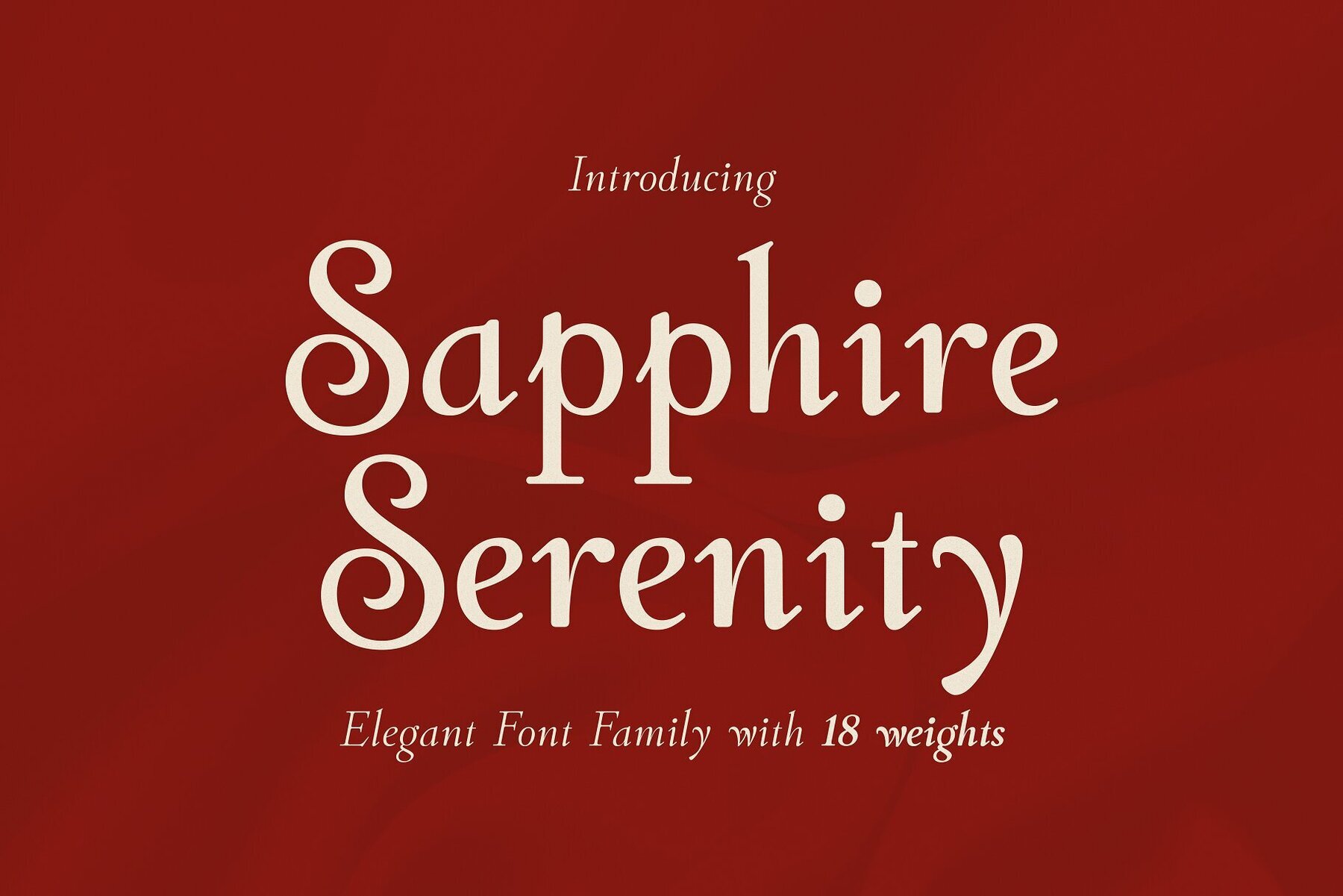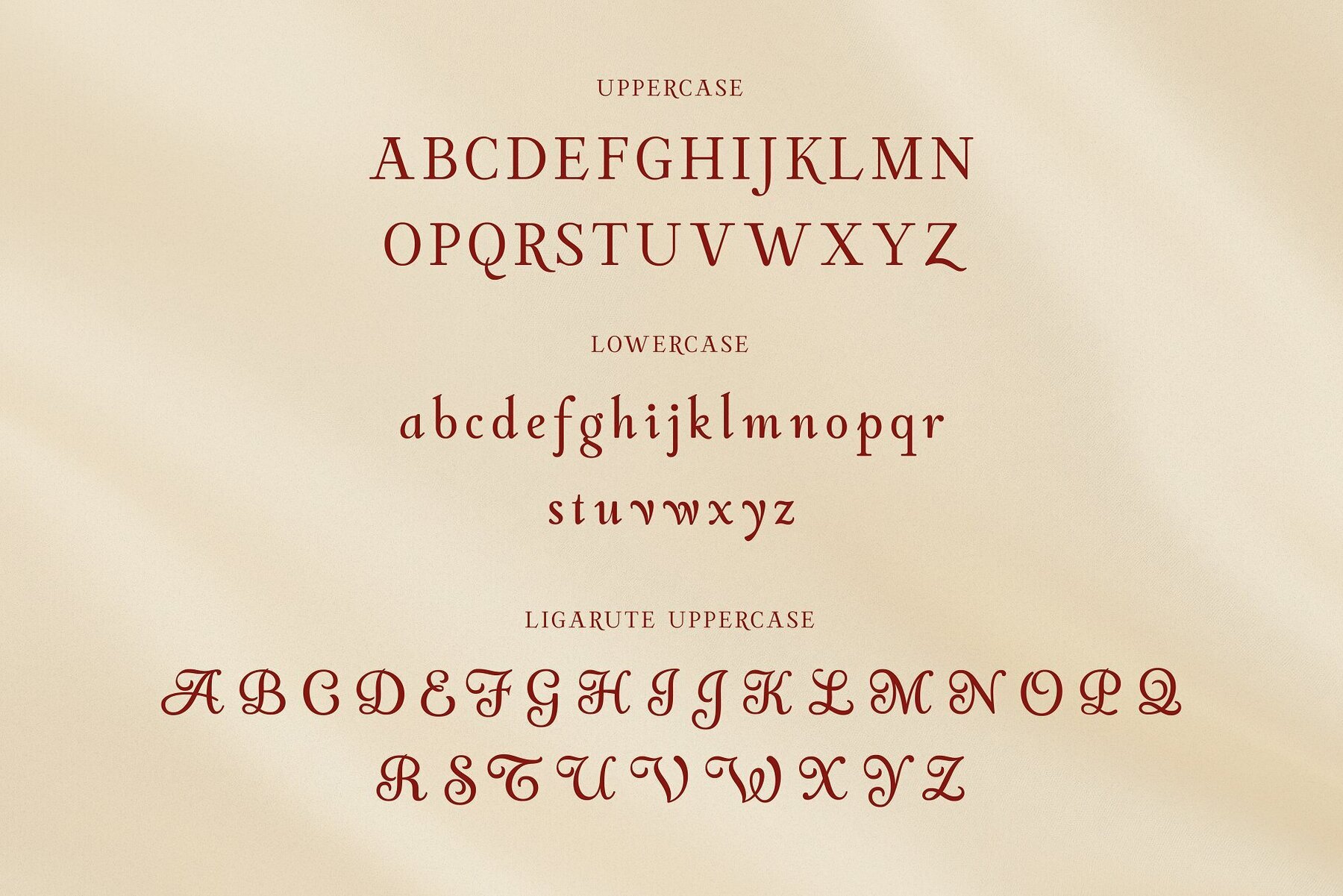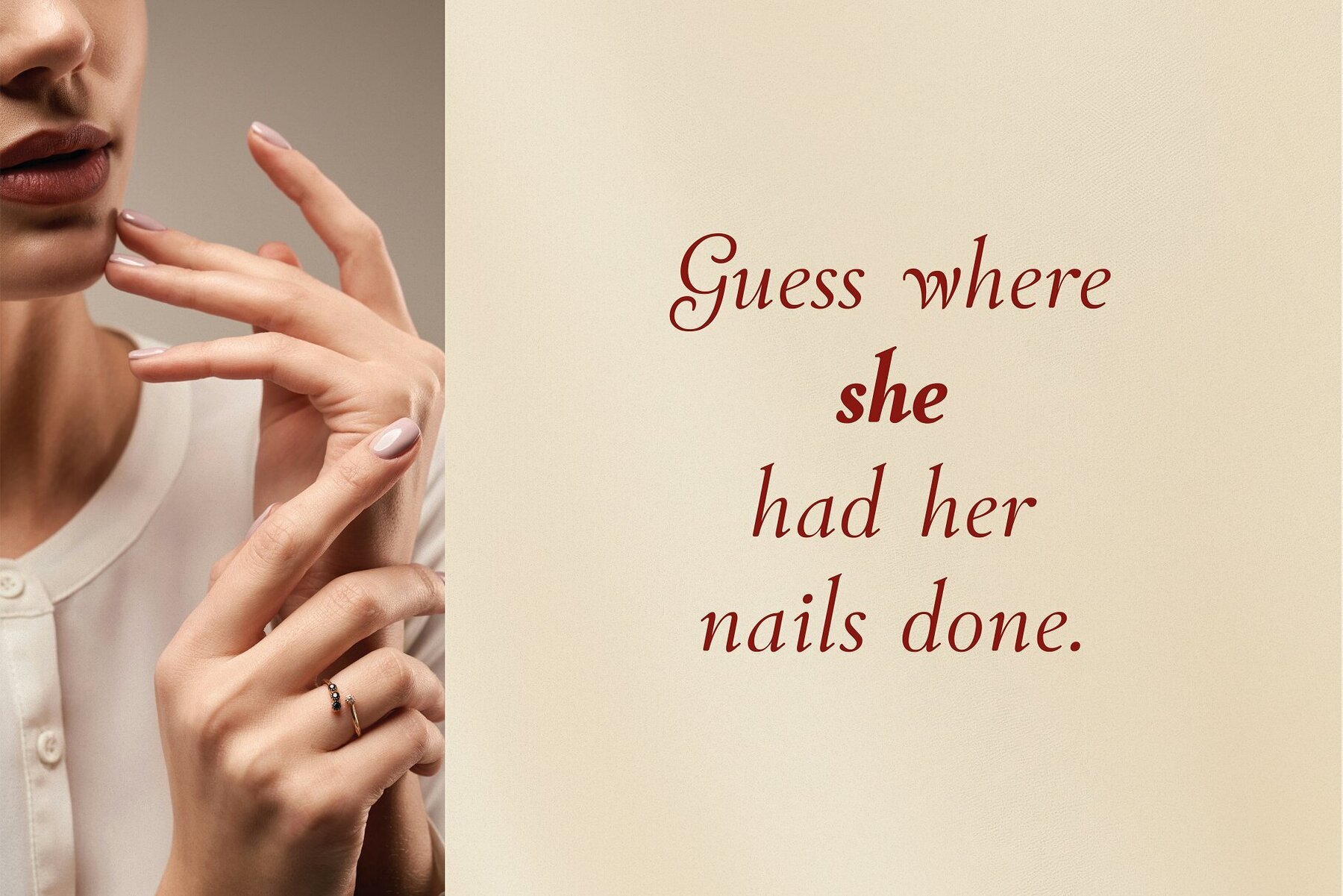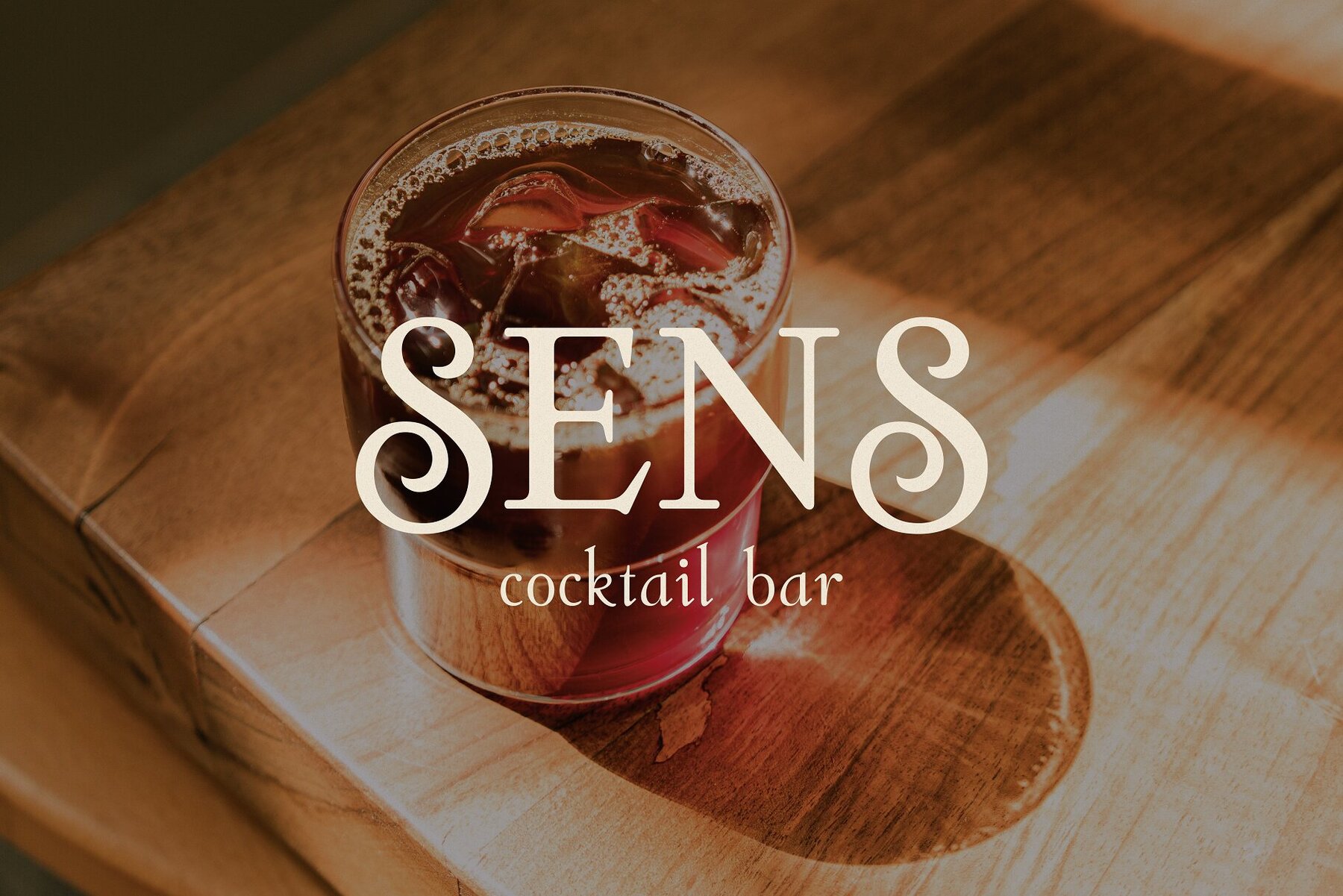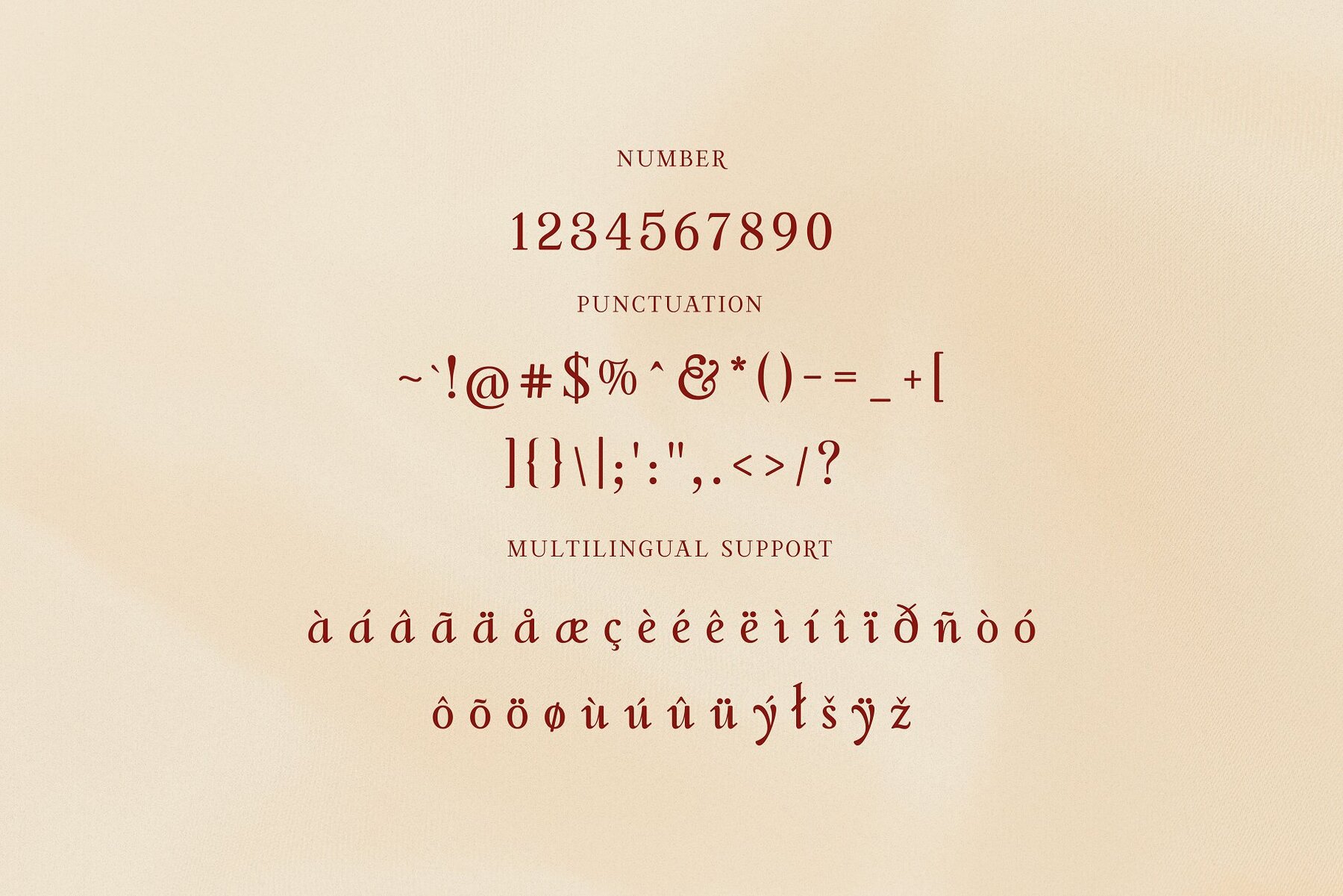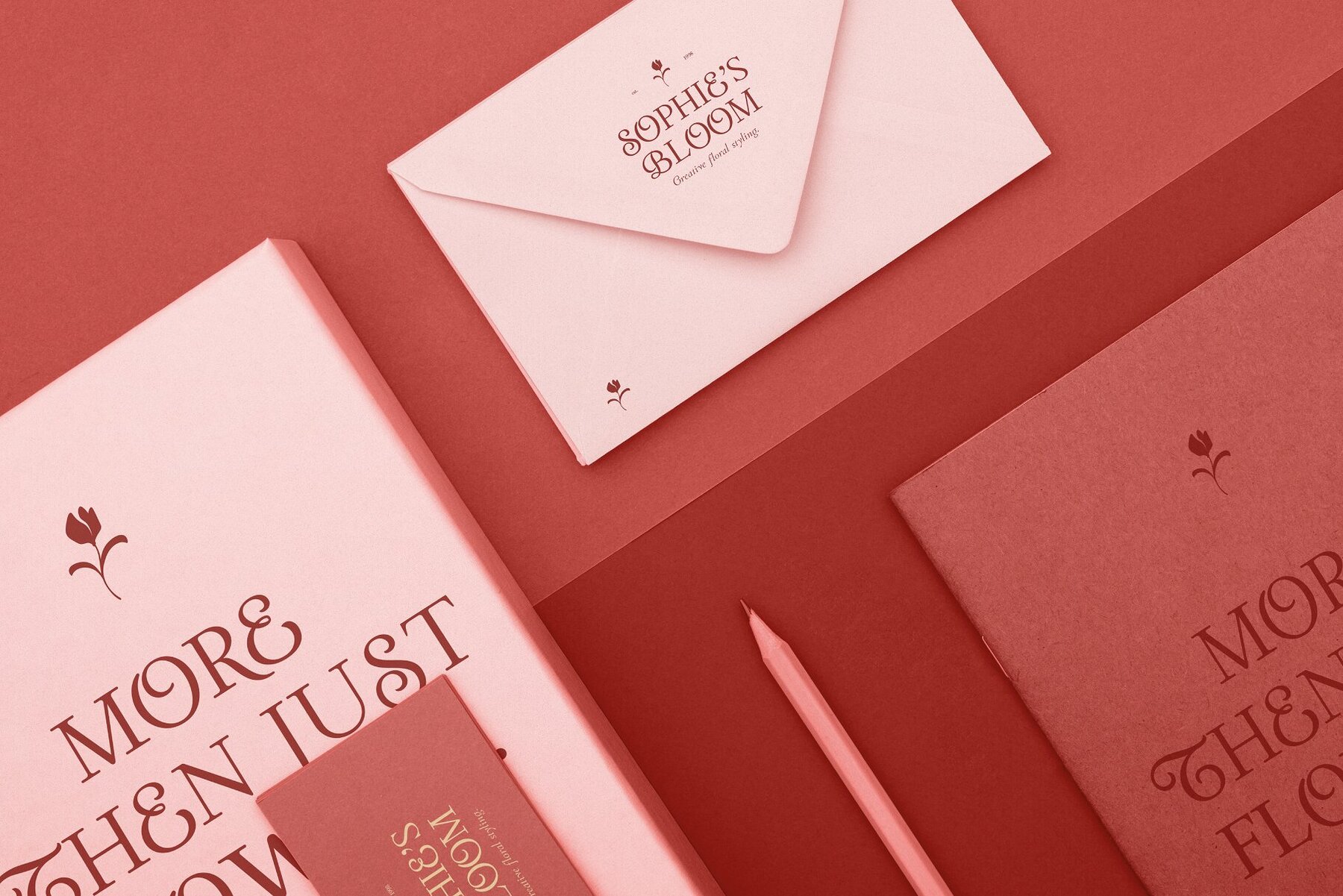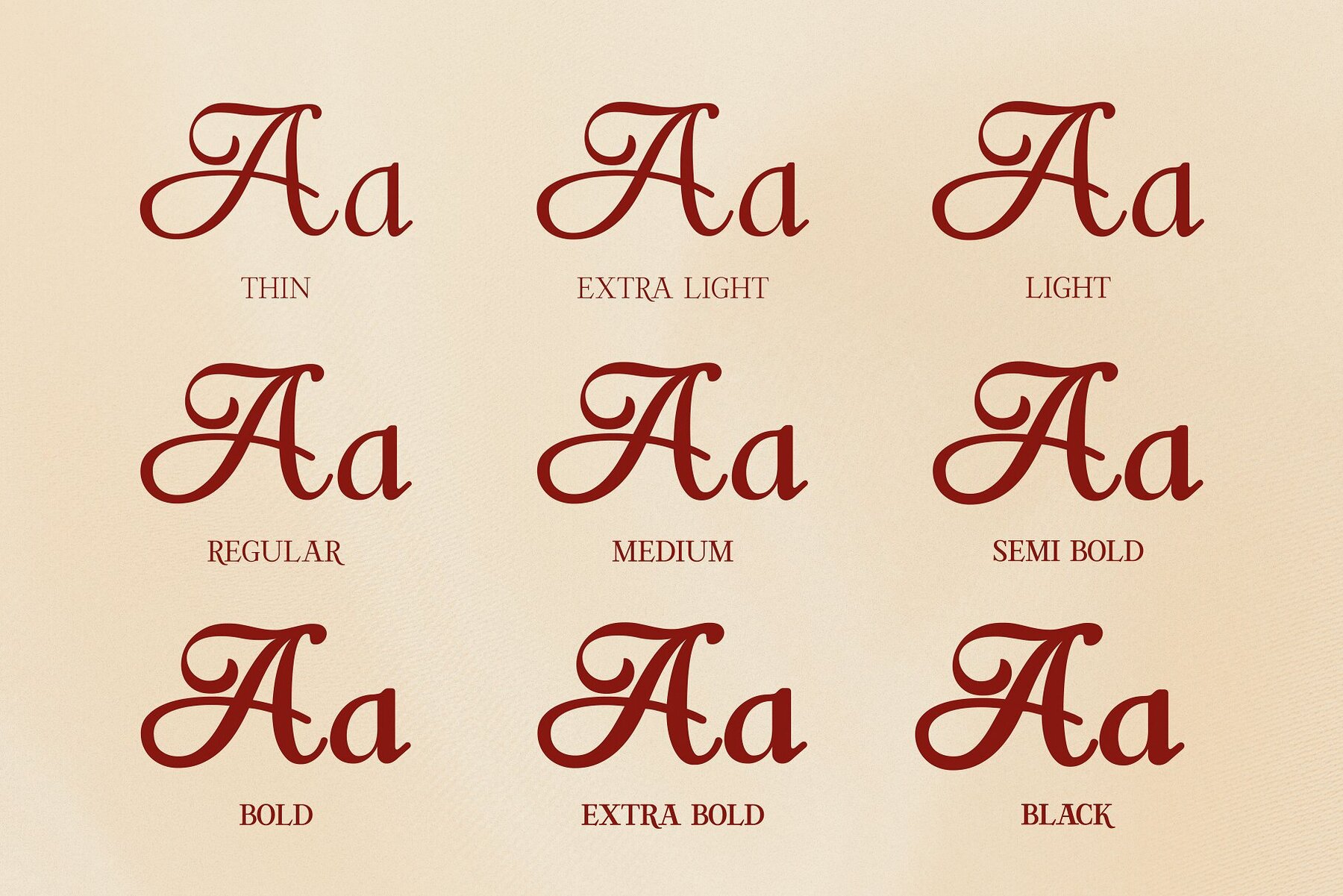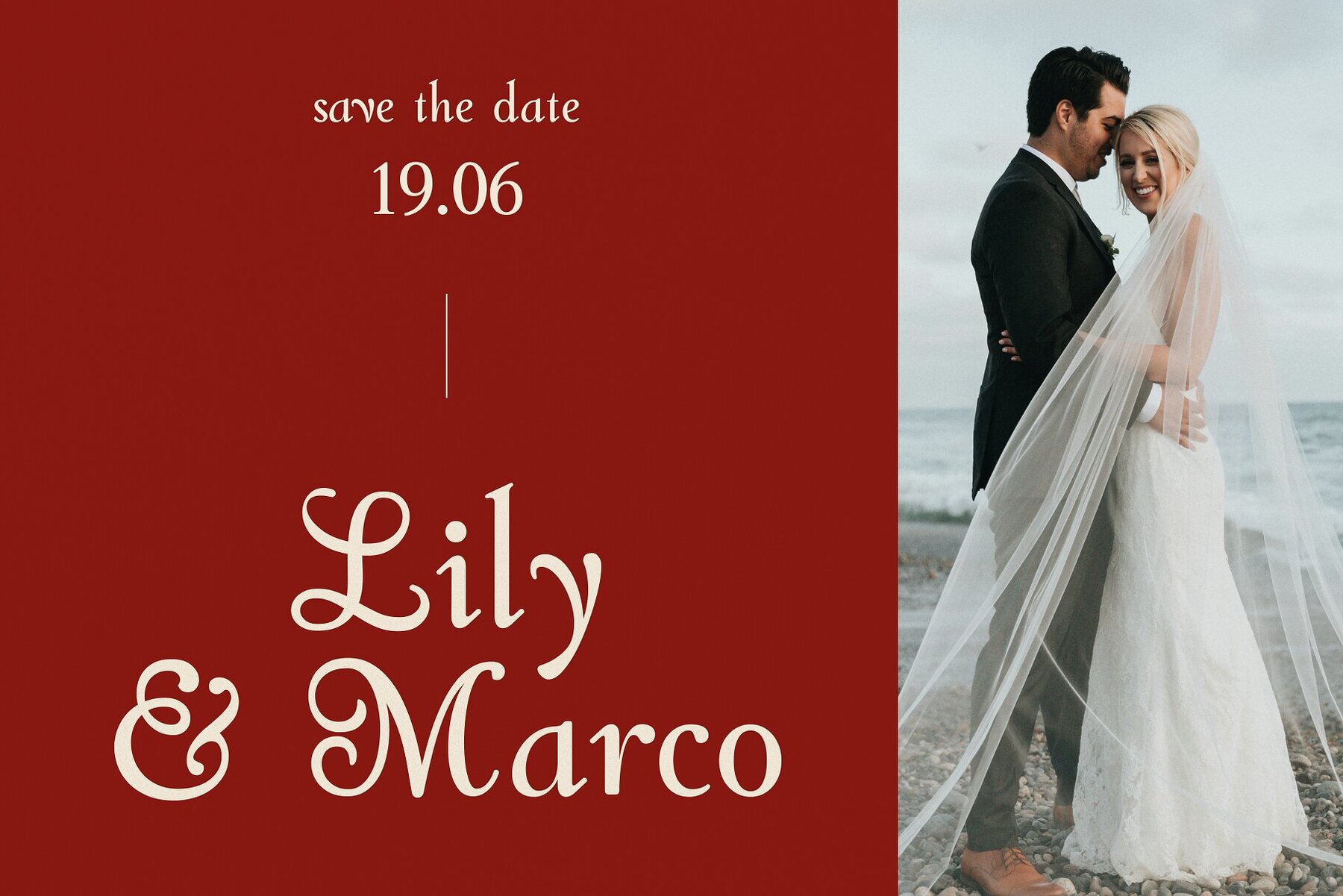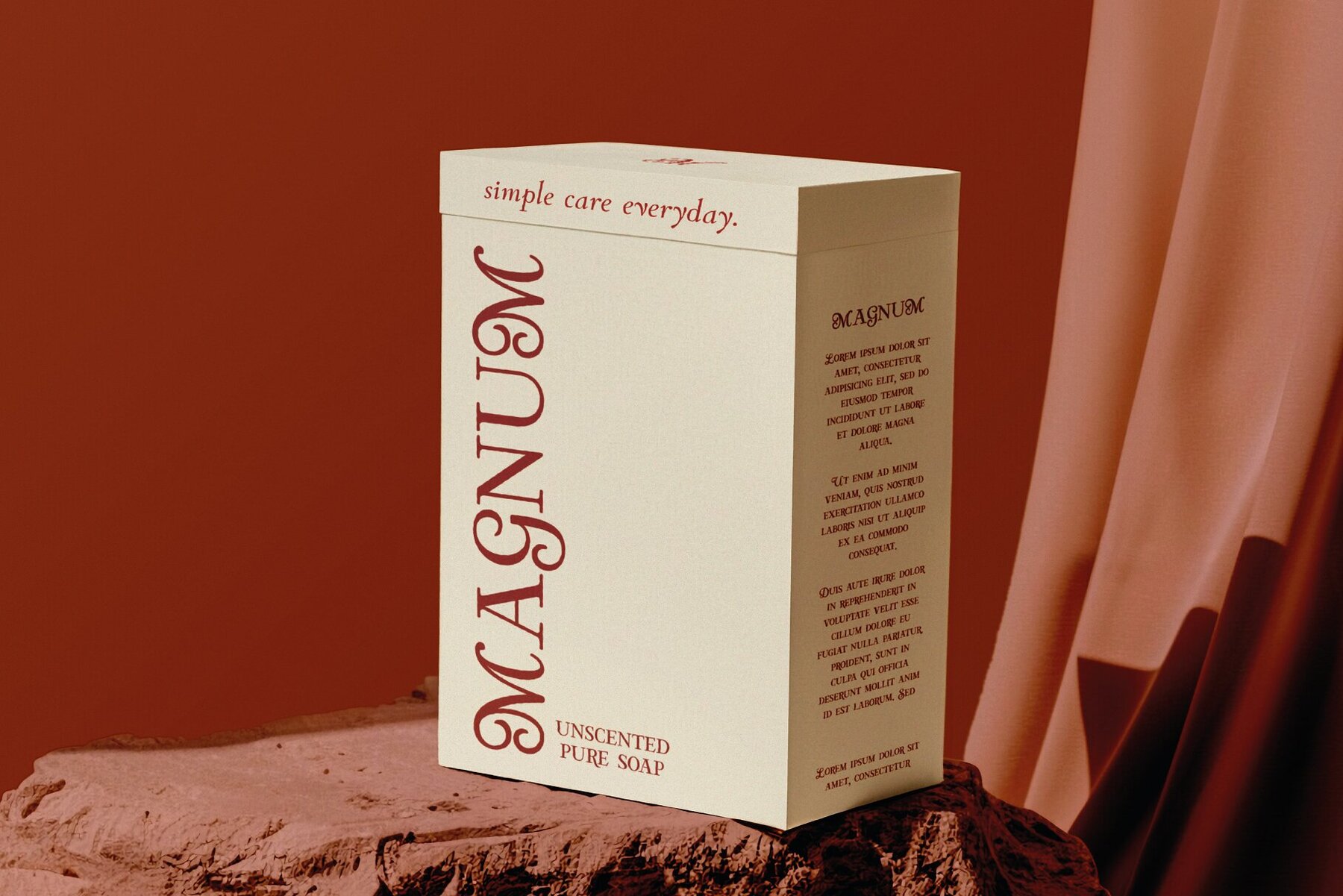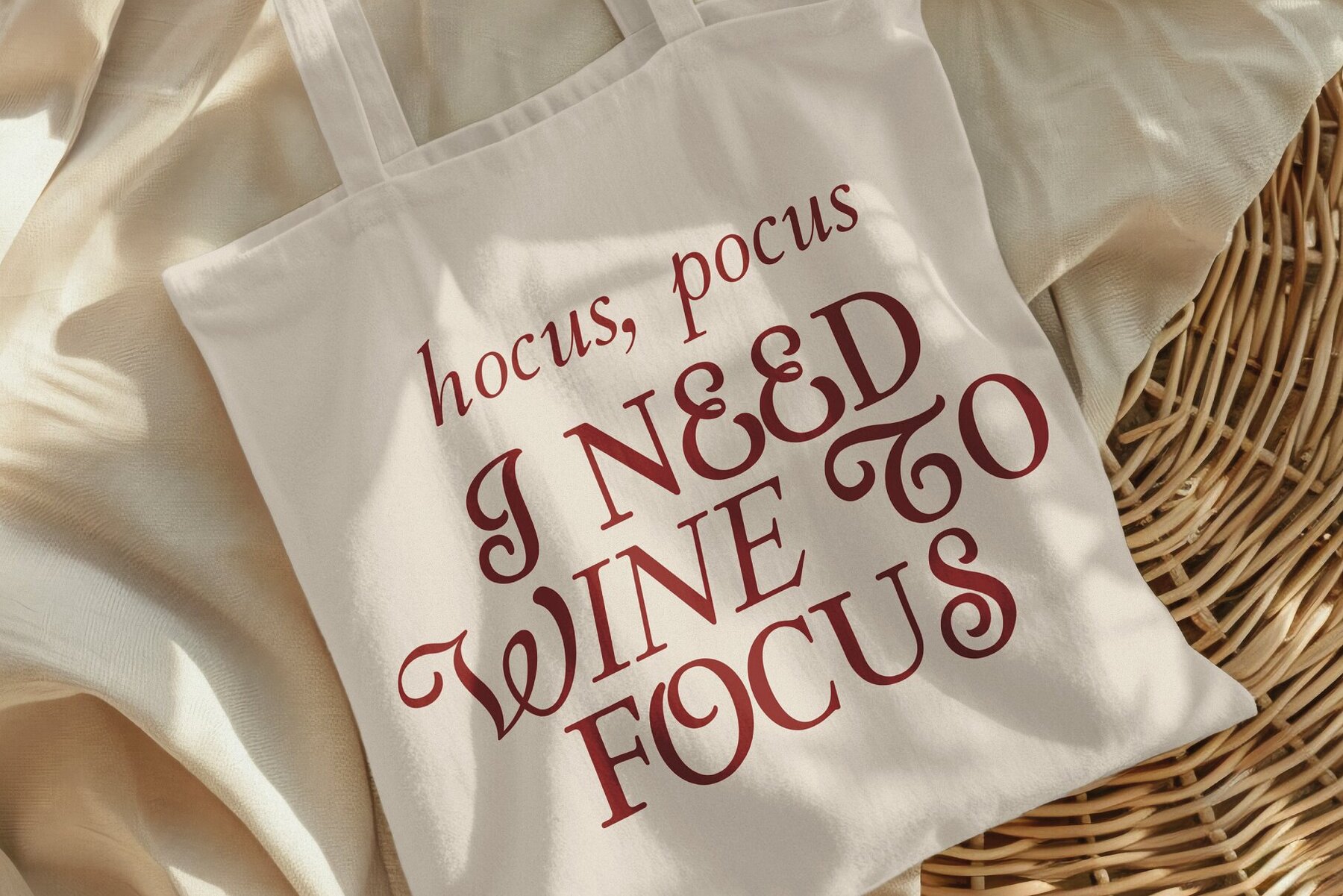
Sapphire Serenity Font
Meet Sapphire Serenity – a timeless serif typeface that marries elegance with versatility, designed to elevate any project with refined sophistication. Crafted for graphic designers who demand both style and functionality, this typeface offers 18 meticulously designed weights to suit every creative vision, from light and delicate to bold and impactful. With its graceful curves and classic serif structure, Sapphire Serenity shines in luxury branding, editorial layouts, product packaging, and upscale invitations. Perfect for adding an air of quiet confidence and understated beauty, this font brings a sense of balance and polish to every piece. Whether you’re creating captivating logos, magazine spreads, or high-end digital designs, Sapphire Serenity adapts effortlessly, making your work stand out with elegance and depth. Transform your projects into works of art with Sapphire Serenity – the serif that’s as versatile as it is stunning.